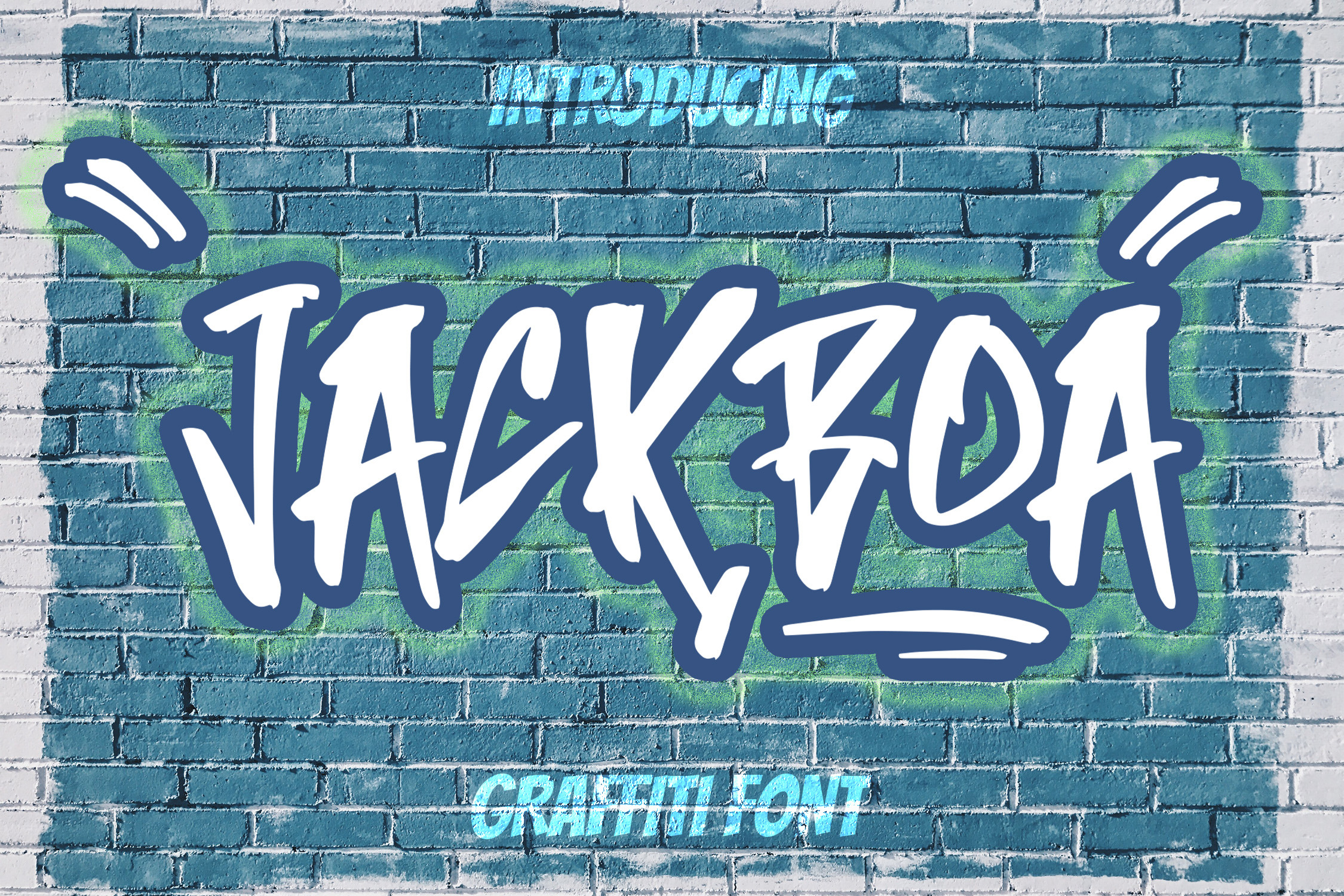
JACKBOA - Graffiti Style Font
JACKBOA is a Graffiti style font that is very suitable for the publication needs of street fashion, magazine, t-shirt design, and can also be used as a Graffiti logotype. This font is designed with a very beautiful graffiti style with various features in it. Made with hand scratches directly and then processed into font processing software.
JACKBOA font with uppercase characters A-Z, lowercase characters a-z, punctuation, swashes, stylistic alternate and ligature characters that enhance this font shape.
-Ligature
-Stylistic Alternate
-Swashes